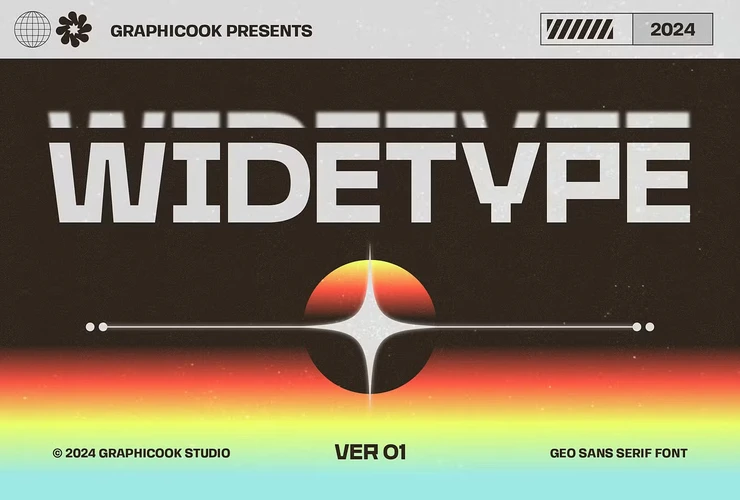
Futuristic Elegance with Widetype: A Modern Geometric Font
In the ever-evolving world of design, Widetype stands out as a font that captures the essence of futuristic elegance. Created by Graphicook, this innovative typeface seamlessly blends geometric and grotesque styles, resulting in a unique and modern aesthetic. Whether you’re designing logotypes, branding, album covers, or posters, Widetype offers a striking solution that commands attention and leaves a lasting impression.
The Modern Appeal of Widetype
Widetype is meticulously crafted to embody the spirit of contemporary design. Its clean lines and sleek geometric forms create a sense of sophistication and modernity, making it ideal for a wide range of applications. The font’s versatility shines through in its ability to adapt to various design contexts, from high-impact headlines to elegant logotypes. Its bold, semi-bold weight adds a touch of drama and emphasis, perfect for making a statement in any project.
Key Features and Uses of Widetype
Widetype’s distinct design makes it an excellent choice for various design projects. Its futuristic vibe is perfect for:
Headlines: Capture attention with bold and modern headlines that stand out.
Logotypes: Create memorable brand identities with a unique and sleek font.
Album Covers & Posters: Enhance visual appeal with a font that complements modern music and artistic themes.
Magazines & Packaging: Bring a touch of sophistication and style to editorial layouts and product packaging.
Movies & Games: Add a futuristic edge to entertainment media, setting the tone for cutting-edge experiences.
Book Covers & Flyers: Ensure your promotional materials are eye-catching and contemporary.
Why Choose Widetype?
Widetype isn’t just a font; it’s a statement piece. Its geometric elegance and modern appeal make it an excellent choice for designers looking to push the boundaries of conventional design. Whether you’re crafting a sleek logotype or designing a futuristic album cover, Widetype provides the perfect balance of form and function, making your creations stand out in any context.